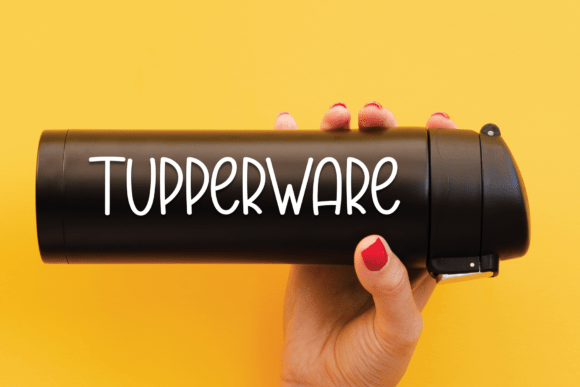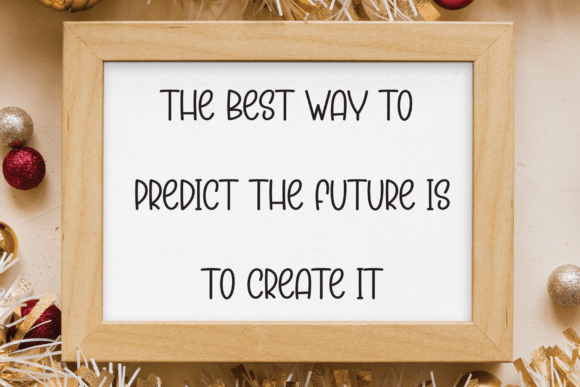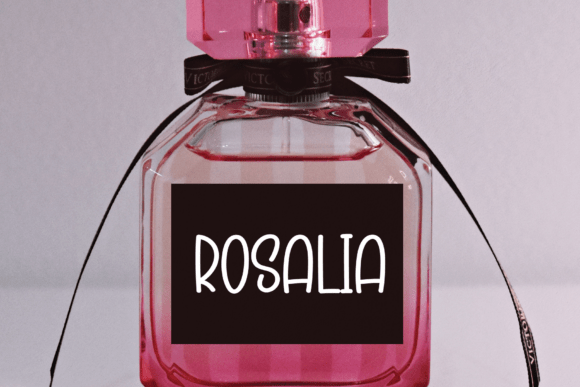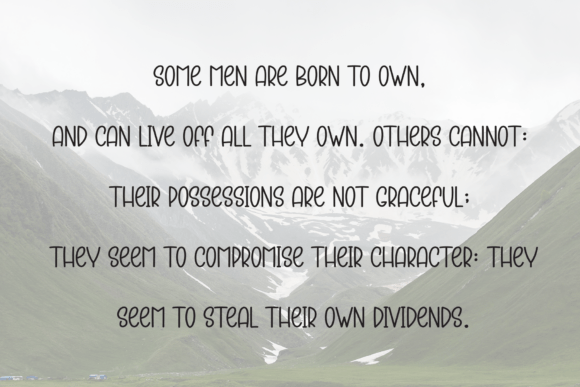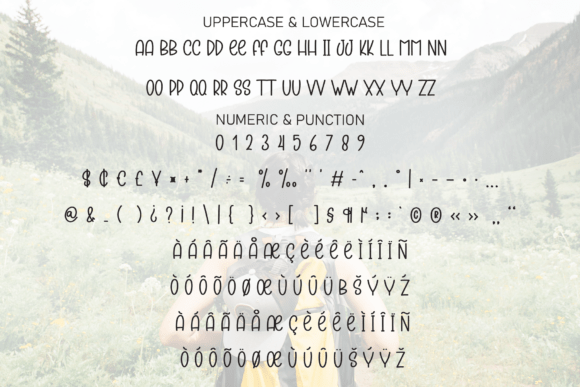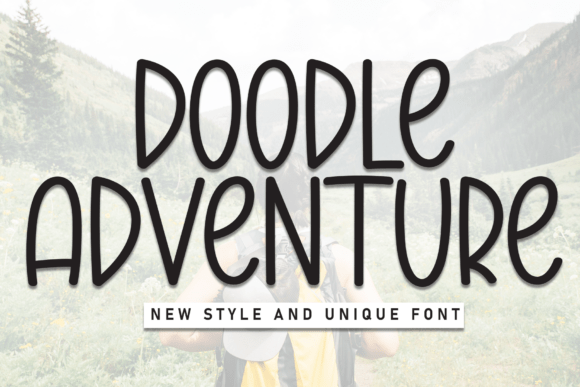
Doodle Adventure Font: Unleash Your Creativity with this Playful Typeface
Are you looking for a font that can add a touch of adventure and playfulness to your design projects? Look no further than the Doodle Adventure Font! This charming display font is perfect for designers and crafters who want to infuse their work with a sense of energy and cheerfulness. In this article, we’ll explore the features and benefits of the Doodle Adventure Font, and show you how to make the most of this versatile typeface.
What is Doodle Adventure Font?
Doodle Adventure Font is a casual display font that boasts tall, slim letterforms and a hand-drawn charm. Its unique and quirky design makes it perfect for a wide range of projects, from adventure-themed designs to travel blogs, children’s books, and more. The font’s playful and energetic personality is sure to capture the attention of your audience and leave a lasting impression.
Key Features of Doodle Adventure Font
- Playful and Casual Design: Doodle Adventure Font features a playful and casual design that’s perfect for creating eye-catching headlines and titles.
- Tall and Slim Letterforms: The font’s tall and slim letterforms give it a unique and elegant look that’s sure to stand out.
- Hand-Drawn Charm: The font’s hand-drawn charm adds a touch of personality and whimsy to your designs.
- Energetic and Cheerful Personality: The font’s energetic and cheerful personality makes it perfect for projects that require a fun and adventurous vibe.
Use Cases for Doodle Adventure Font
Doodle Adventure Font is a versatile typeface that can be used in a wide range of projects, including:
- Adventure-Themed Designs: Use the font to create bold and eye-catching titles for adventure-themed designs, such as posters, flyers, and brochures.
- Travel Blogs: Add a touch of playfulness and adventure to your travel blog with the Doodle Adventure Font.
- Children’s Books: The font’s playful and energetic personality makes it perfect for children’s books, comics, and graphic novels.
- Branding and Packaging: Use the font to create unique and eye-catching branding and packaging designs that stand out from the crowd.
Tips for Using Doodle Adventure Font
Here are some tips for making the most of the Doodle Adventure Font:
- Use it as a Display Font: Doodle Adventure Font is designed to be used as a display font, so use it to create bold and eye-catching headlines and titles.
- Experiment with Colors and Textures: The font’s playful and energetic personality lends itself well to bright colors and fun textures.
- Pair it with Other Fonts: Try pairing the Doodle Adventure Font with other fonts to create a unique and interesting contrast.
In conclusion, the Doodle Adventure Font is a playful and versatile typeface that’s perfect for designers and crafters who want to add a touch of adventure and playfulness to their design projects. With its unique and quirky design, energetic and cheerful personality, and wide range of use cases, this font is sure to become a favorite in your design toolkit. So why wait? Unleash your creativity and explore the possibilities with the Doodle Adventure Font!